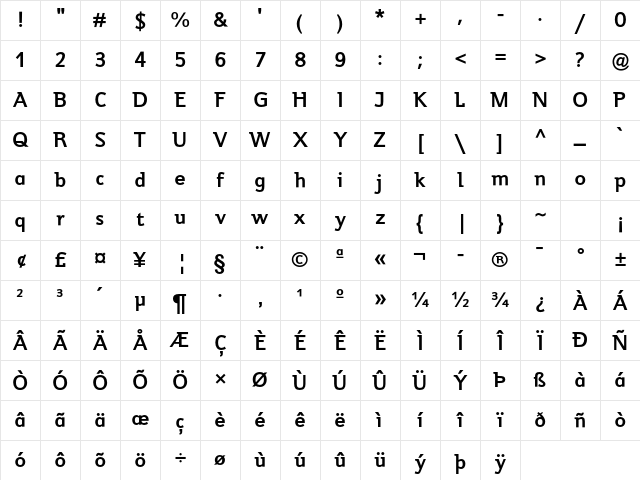
Jeunesse Std Bold
Complete Jeunesse Std Bold glyph index. Displaying only characters natively supported by Jeunesse Std Bold font.
Design Context for Jeunesse Std
Jeunesse Std is a composed and adaptable typeface that performs quietly and consistently across a wide range of design contexts. Its bold stroke weight gives it real presence on the page.